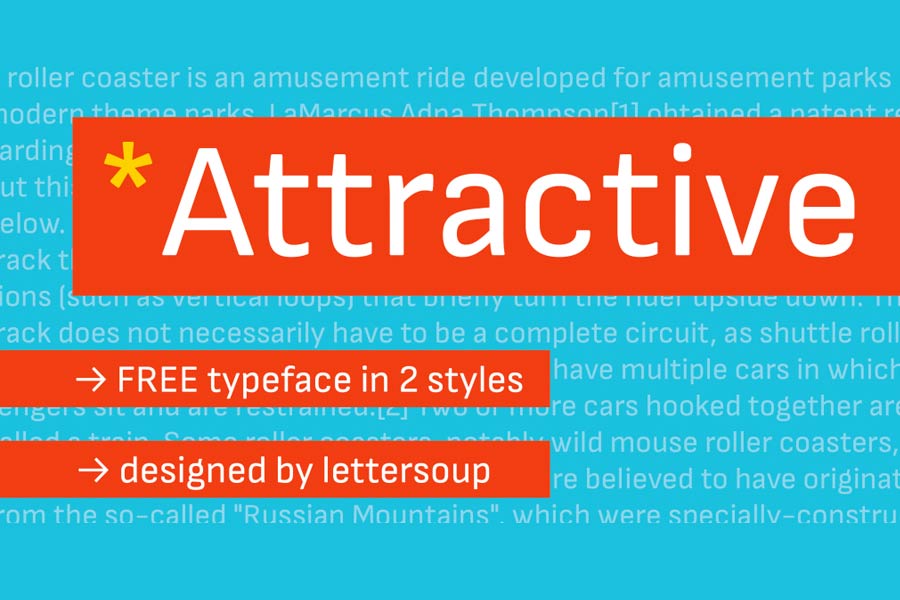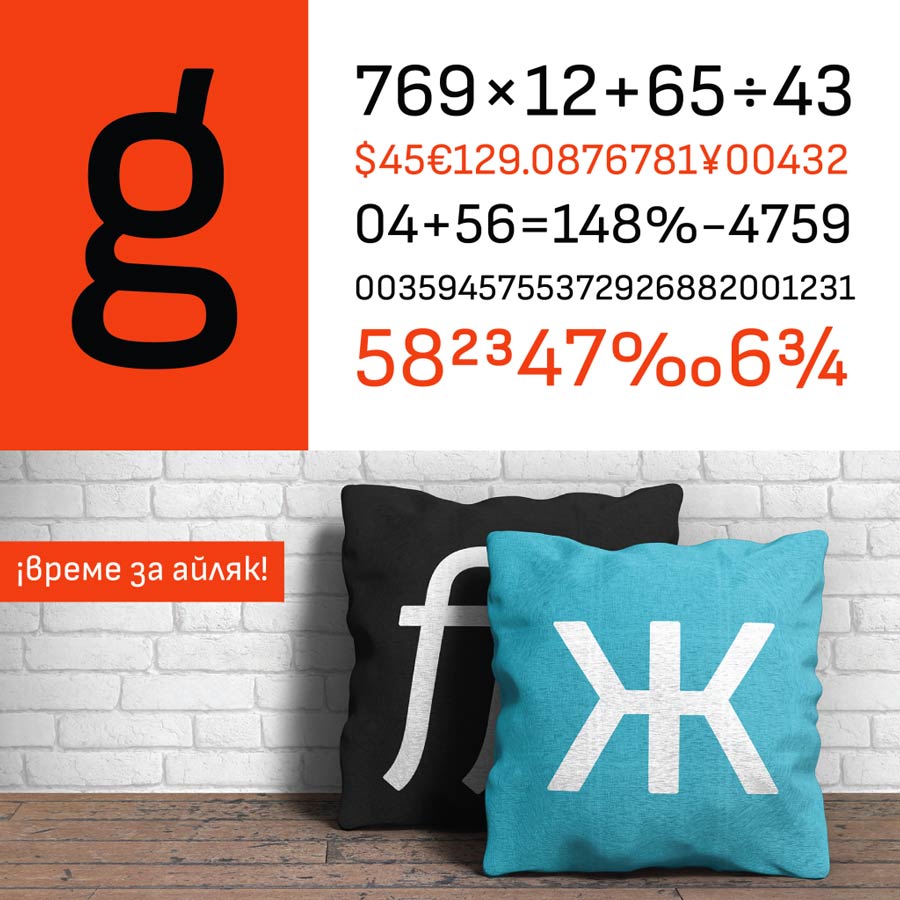
Attractive is a modern looking sans serif font that comes with two style: Regular and Italic. It supports wide range of characters including Latin, Greek and Cyrillic Script. Counters of the letter are more squarish, and the hard corners are soften with small round corner designs.
Attractive comes with complex, professional Open Type features, so this font is perfect for headlines as well as body text. You can use this font for both personal and commercial projects!